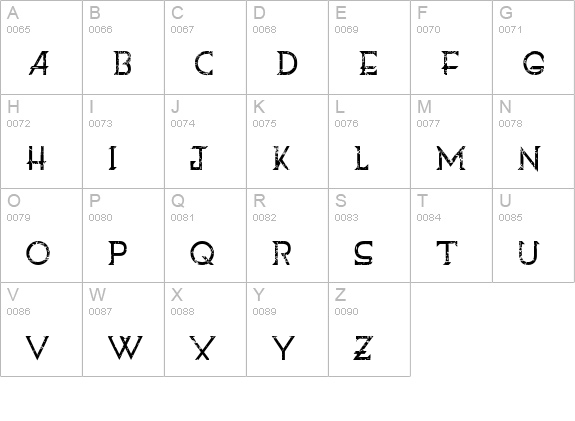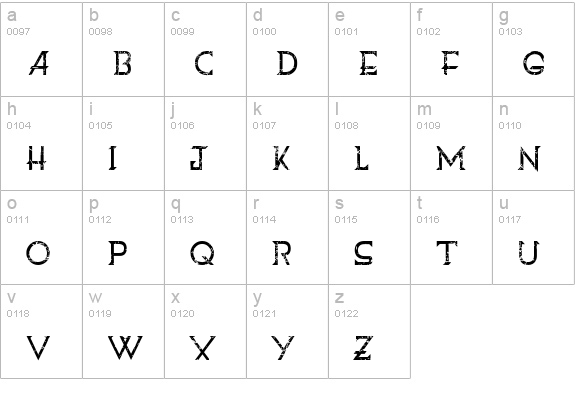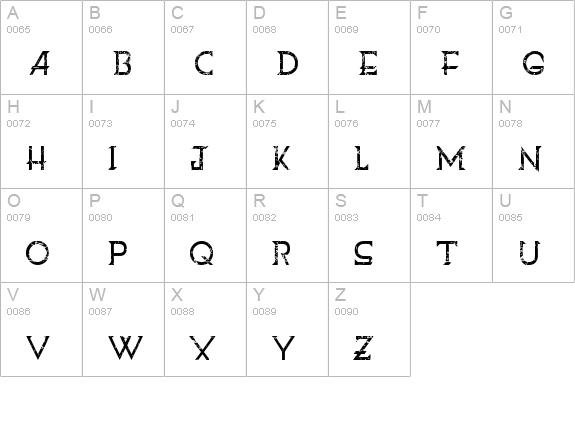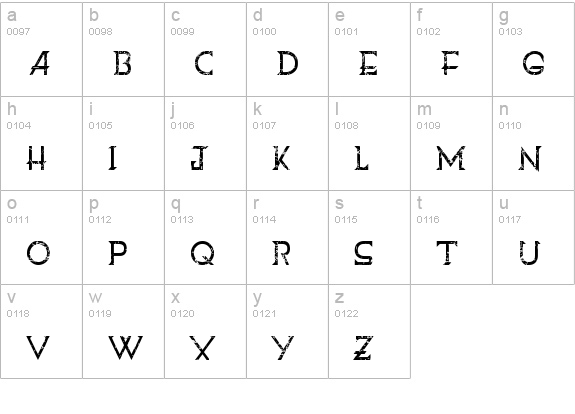
Paralyzed Sky and Moon - LJ-design Studios Grunge Font Details
Paralyzed Sky and Moon, brought to you by LJ-design Studios, is a captivating grunge font that adds a touch of edgy sophistication to any design project. With its bold and rugged letterforms, this font exudes a sense of rebellious attitude and raw energy. Perfect for creating eye-catching headlines, posters, album covers, or even logos, Paralyzed Sky and Moon is a versatile font that can effortlessly convey a variety of moods and aesthetics. Whether you're aiming for a vintage-inspired look, a contemporary urban vibe, or something in between, this font has got you covered. What makes Paralyzed Sky and Moon even more appealing is the fact that it is available to download freely at FontsMarket.com. This means that you can easily access this unique font without any cost, making it a valuable addition to your font collection. With its intricate details and distressed textures, Paralyzed Sky and Moon is sure to make a lasting impression on your audience. So, if you're looking to add a touch of grunge and character to your designs, don't miss out on this opportunity to download Paralyzed Sky and Moon for free at FontsMarket.com.